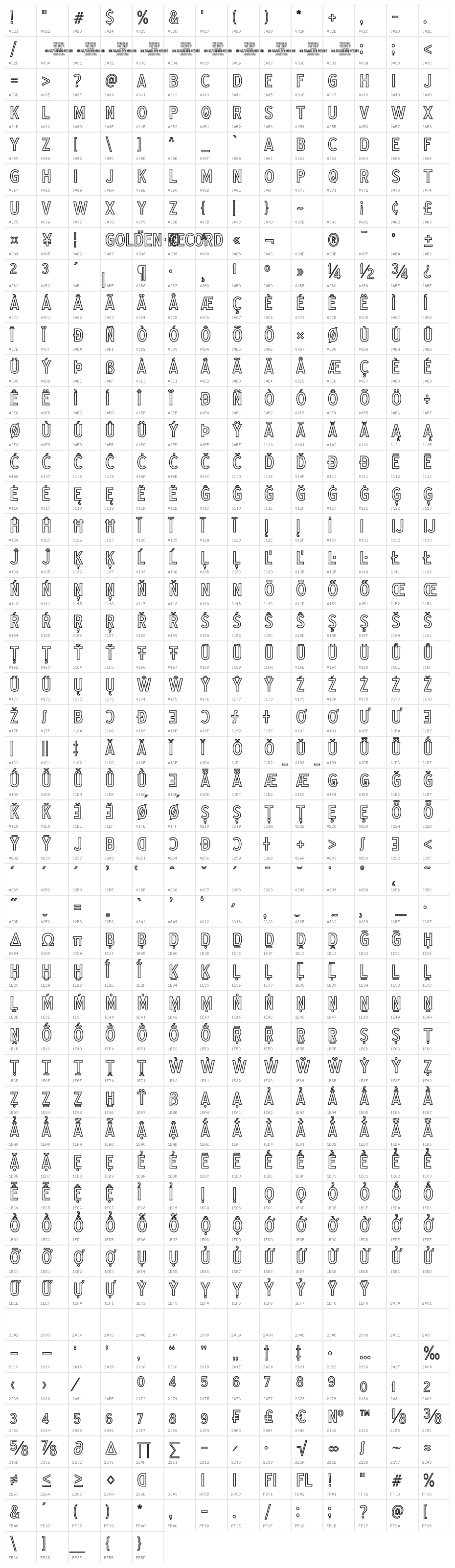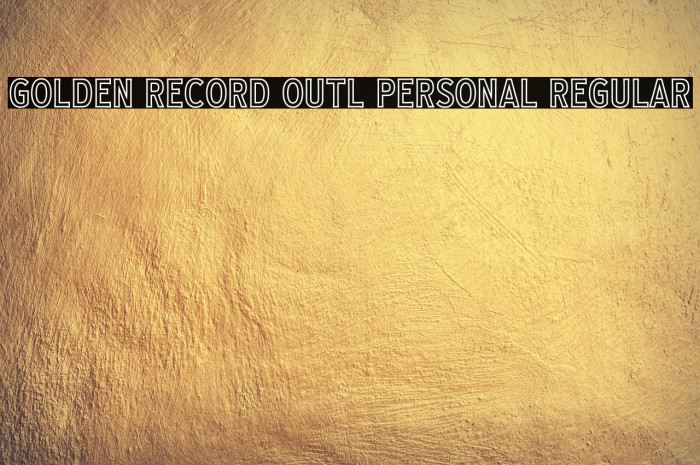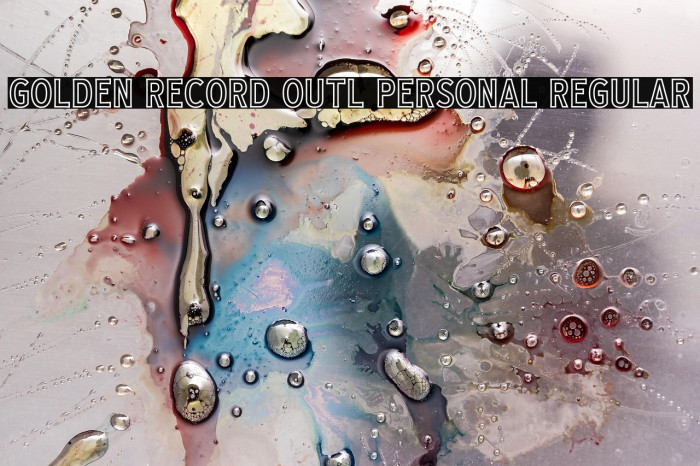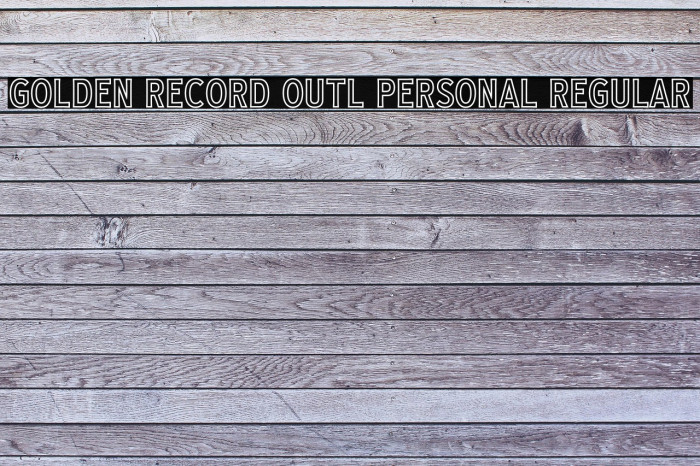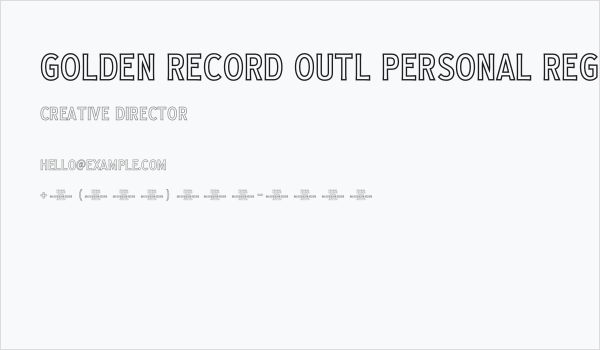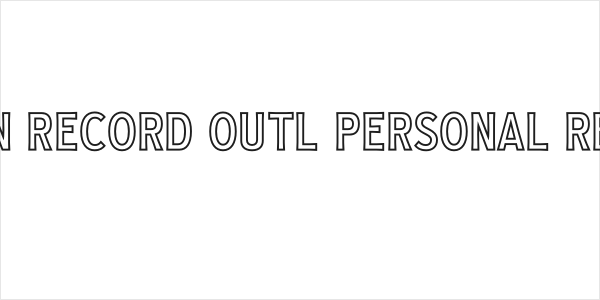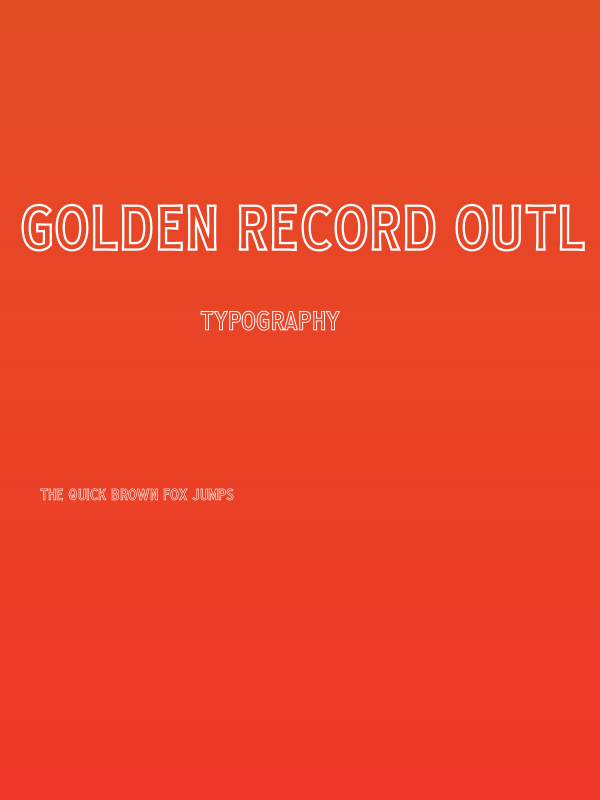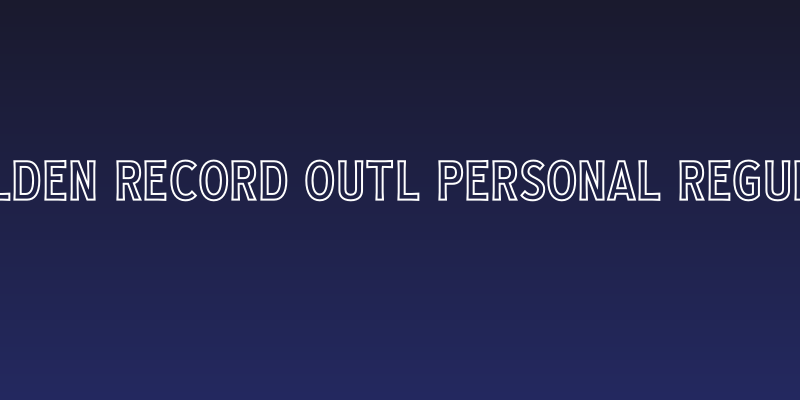
Golden Record Outl PERSONAL Regular Font
Golden Record Outl PERSONAL Regular Description
This font features a bold, outlined style with a geometric and modern appearance. The uppercase letters are evenly spaced and maintain a consistent height, giving a clean and structured look. The characters are outlined, providing a unique visual effect that makes them stand out without being filled. This design choice adds a layer of sophistication and creativity, making it suitable for various design applications. The numbers and special characters follow the same outlined style, ensuring uniformity across all glyphs. The font's overall aesthetic is both contemporary and versatile, making it ideal for projects that require a bold yet elegant typeface.
| Proposed Projects | Ideal for branding, posters, headlines, and any design project that requires a striking and modern typeface. |